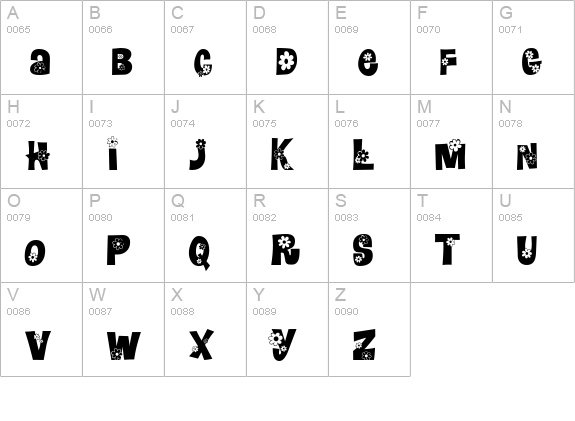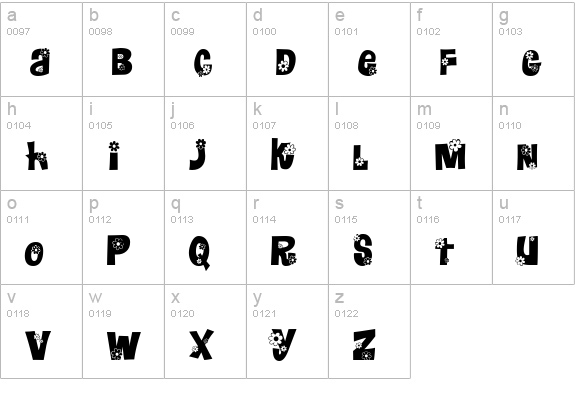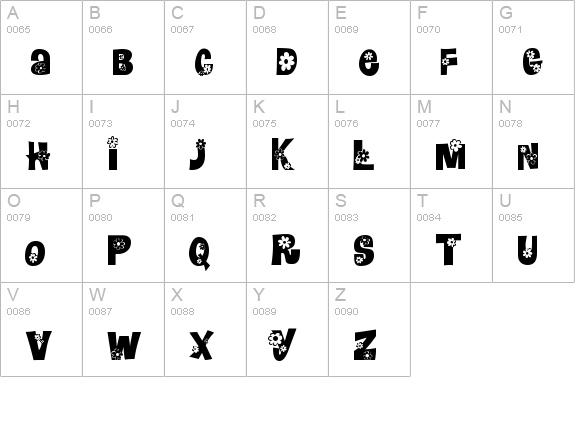
Floralies Font Details
Floralies font is a stunning and elegant typeface that brings a touch of sophistication to any project. With its delicate floral-inspired design, this font is perfect for adding a romantic and charming feel to invitations, cards, logos, and more. The intricate details of the letters give Floralies a unique and artistic look that will captivate any audience. The best part? Floralies font is completely free to download at FontsMarket.com. This means you can easily access and use this beautiful font for your personal and commercial projects without any cost. Whether you're a designer looking to enhance your creations or simply a lover of beautiful typography, Floralies font is a must-have addition to your font collection. Download it today and let its beauty blossom in your designs.